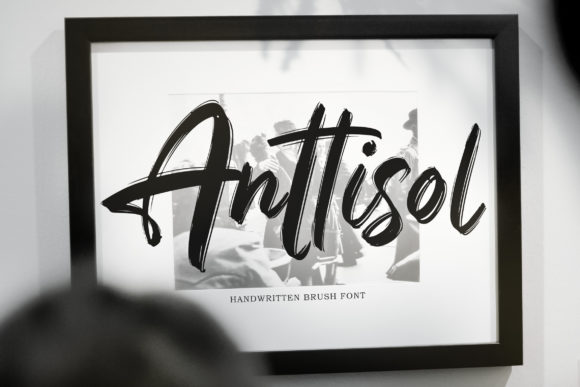
Anttisol Font: Unleashing the Power of Bold and Funky Handwritten Typography
In the world of typography, fonts play a crucial role in conveying messages, expressing emotions, and creating visual identities. Among the numerous fonts available, Anttisol stands out as a bold and funky handwritten font that exudes a cool charm. In this article, we’ll dive into the unique features of Anttisol, explore its characteristics, and discuss how to make the most of this exciting font.
What is Anttisol Font?
Anttisol is a carefully crafted handwritten font that boasts a distinctive and eye-catching style. Its bold and funky appearance makes it perfect for designs that require a touch of personality and flair. The font’s unique flavor is a result of its creative and artistic approach, which sets it apart from more traditional typography.
Key Features of Anttisol Font
- Bold and Funky: Anttisol’s bold and funky style makes it ideal for headlines, titles, and emphasis text.
- Handwritten: The font’s handwritten nature gives it a personal and human touch, perfect for creative and artistic projects.
- Cool Charm: Anttisol’s unique charm makes it perfect for designs that require a touch of personality and style.
- Versatile: The font is suitable for a wide range of applications, from digital media to print materials.
10 Inspiring Ways to Use Anttisol Font
Anttisol’s versatility makes it suitable for various design projects. Here are some ideas to get you started:
- Logos and Branding: Use Anttisol to create a bold and memorable logo that reflects your brand’s personality.
- Social Media Graphics: Add a touch of funk and personality to your social media graphics, such as Facebook posts, Instagram stories, and Twitter headers.
- Headlines and Titles: Use Anttisol to create eye-catching headlines and titles for articles, blog posts, and website content.
- Posters and Flyers: Create bold and attention-grabbing posters and flyers for events, promotions, and marketing campaigns.
- Business Cards: Add a personal touch to your business cards with Anttisol’s unique and stylish font.
- Digital Invitations: Use Anttisol to create digital invitations for parties, weddings, and other special events.
- Infographics: Add visual interest to your infographics with Anttisol’s bold and funky font.
- Web Design: Use Anttisol to create visually appealing website headers, section titles, and emphasis text.
- Advertising: Use Anttisol to create bold and attention-grabbing ads for print, digital, and social media campaigns.
- Packaging Design: Add a touch of personality to your product packaging with Anttisol’s unique and stylish font.
Typography Tips for Using Anttisol Font
To make the most of Anttisol, follow these typography tips:
- Pair with Neutral Fonts: Pair Anttisol with neutral fonts to create visual contrast and balance.
- Use Bold and Italic Variations: Experiment with Anttisol’s bold and italic variations to add emphasis and create visual hierarchy.
- Adjust Font Size: Adjust the font size to create visual interest and emphasis.
- Experiment with Colors: Experiment with different colors to find the perfect match for your design.
In conclusion, Anttisol is a bold and funky handwritten font that offers a unique and stylish approach to typography. Its versatility, charm, and personality make it perfect for a wide range of design projects. By following the tips and ideas outlined in this article, you’ll be able to unlock the full potential of Anttisol and take your designs to the next level.